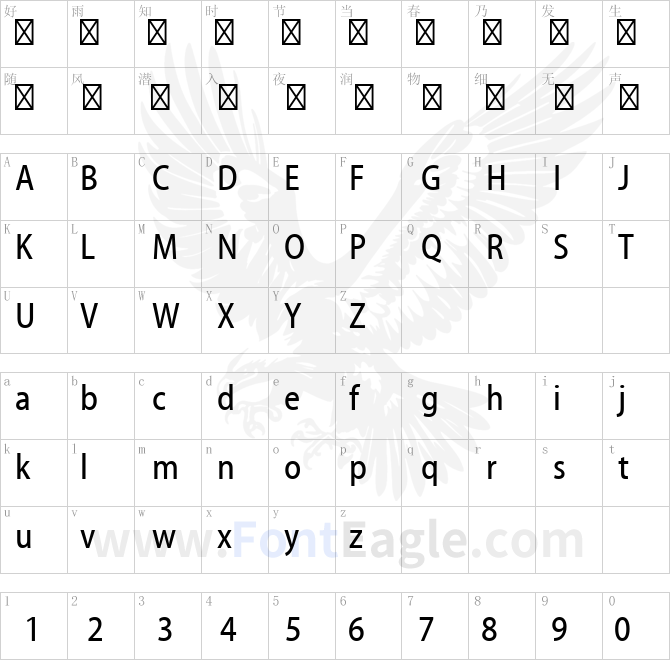
- Font name:Myriad Web Pro Condensed
MyriadWebPro-Condensed is a great font, widely used in graphic design, single-page menu design, poster design and other fields, and is deeply loved by designers.MyriadWebPro-Condensed download.